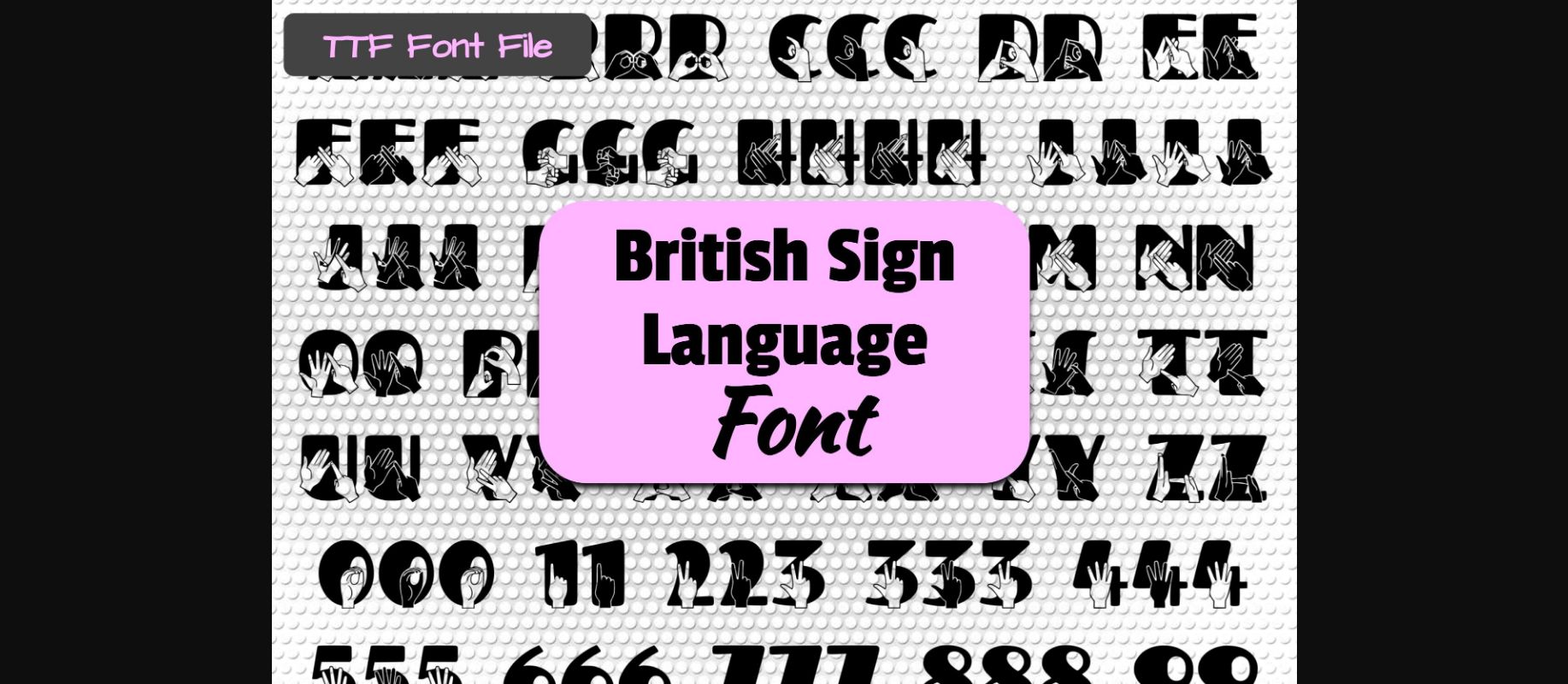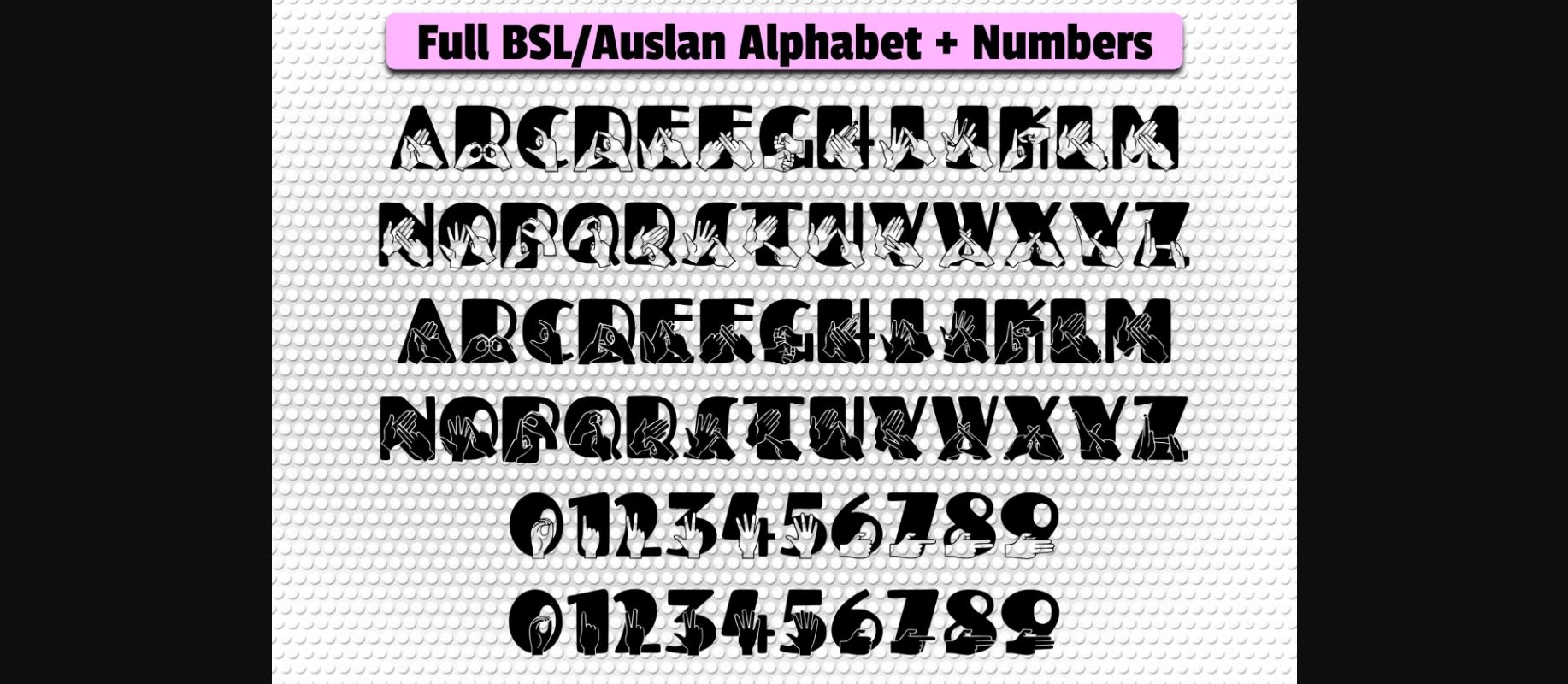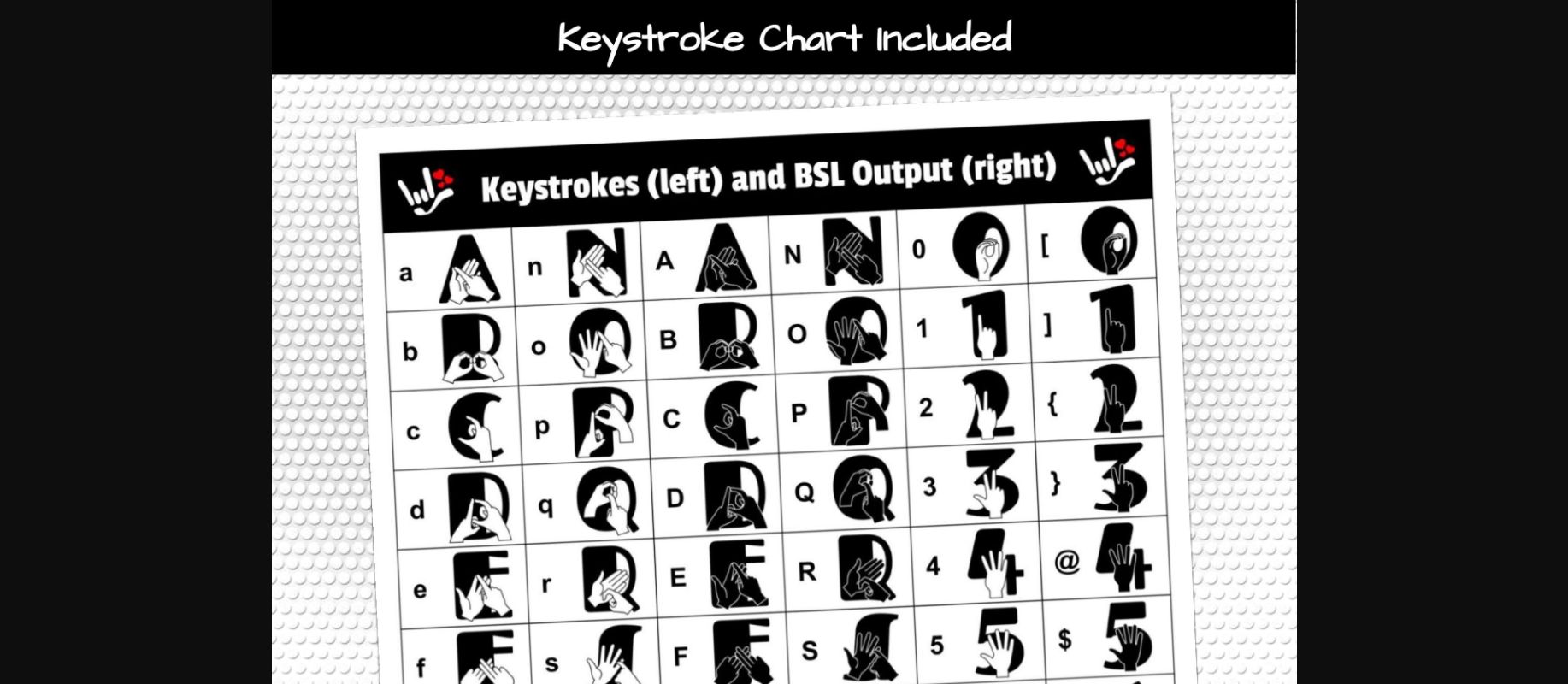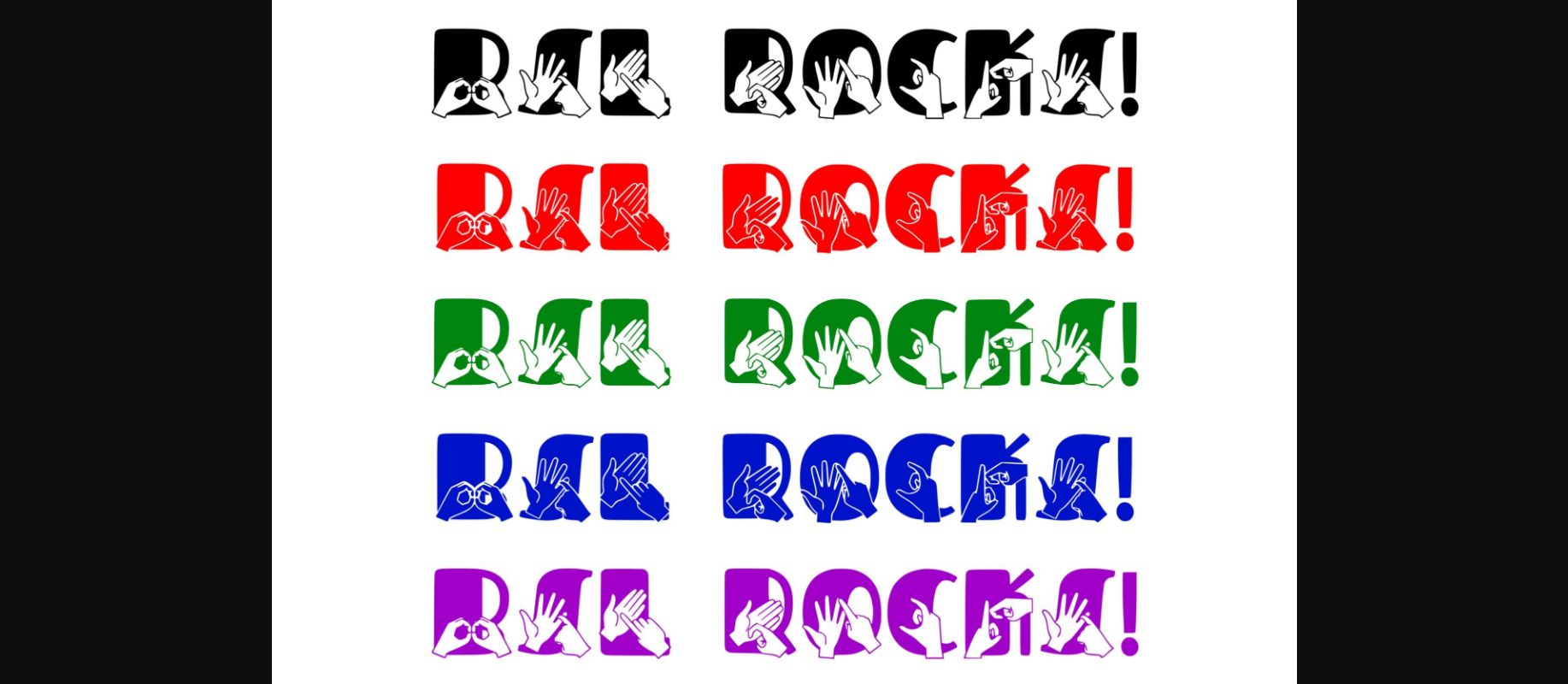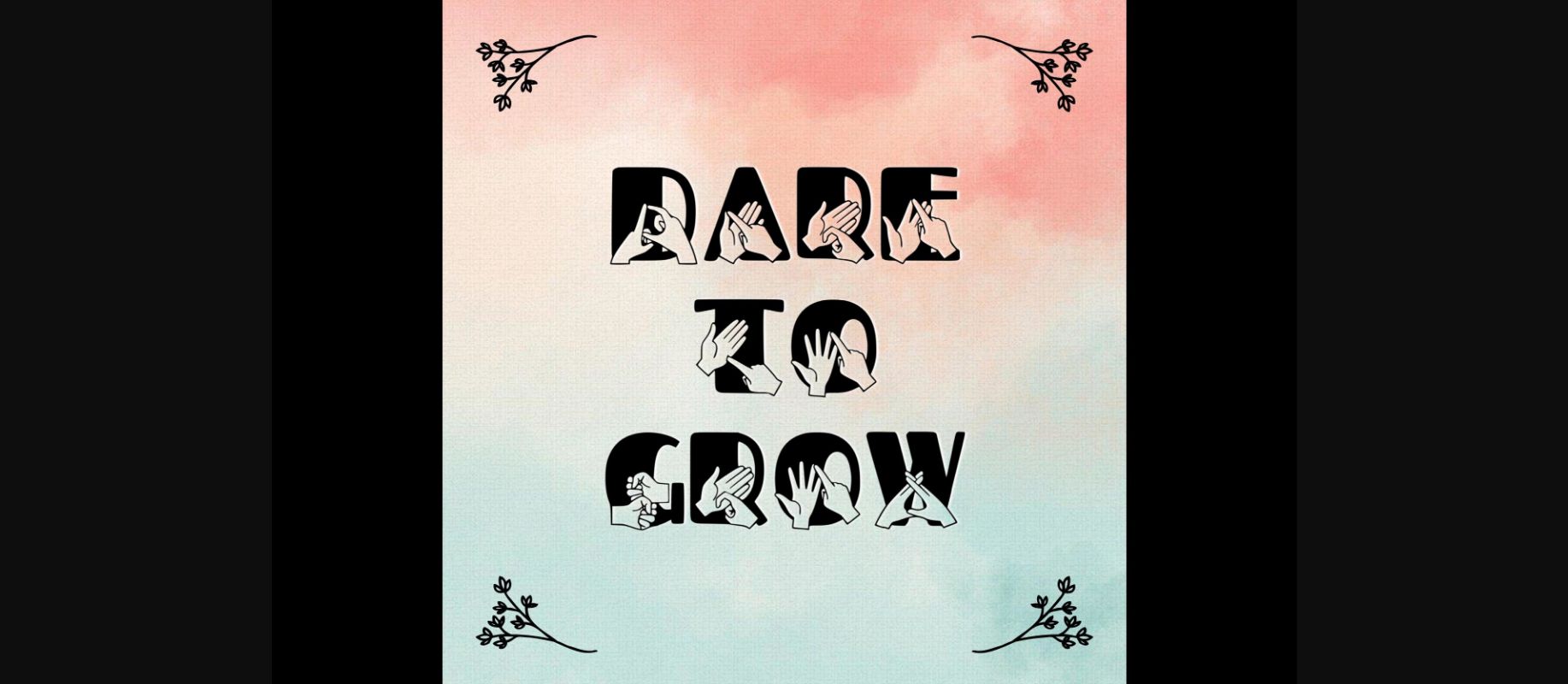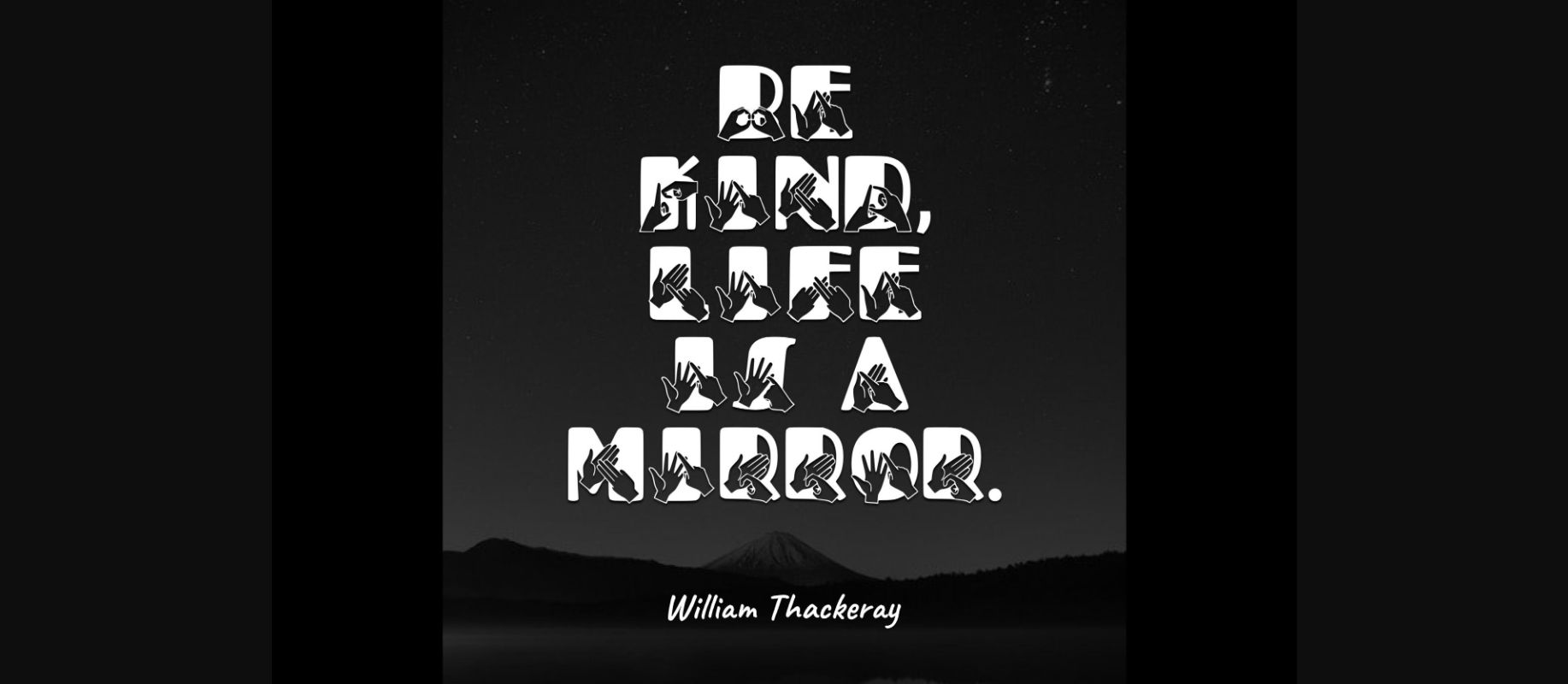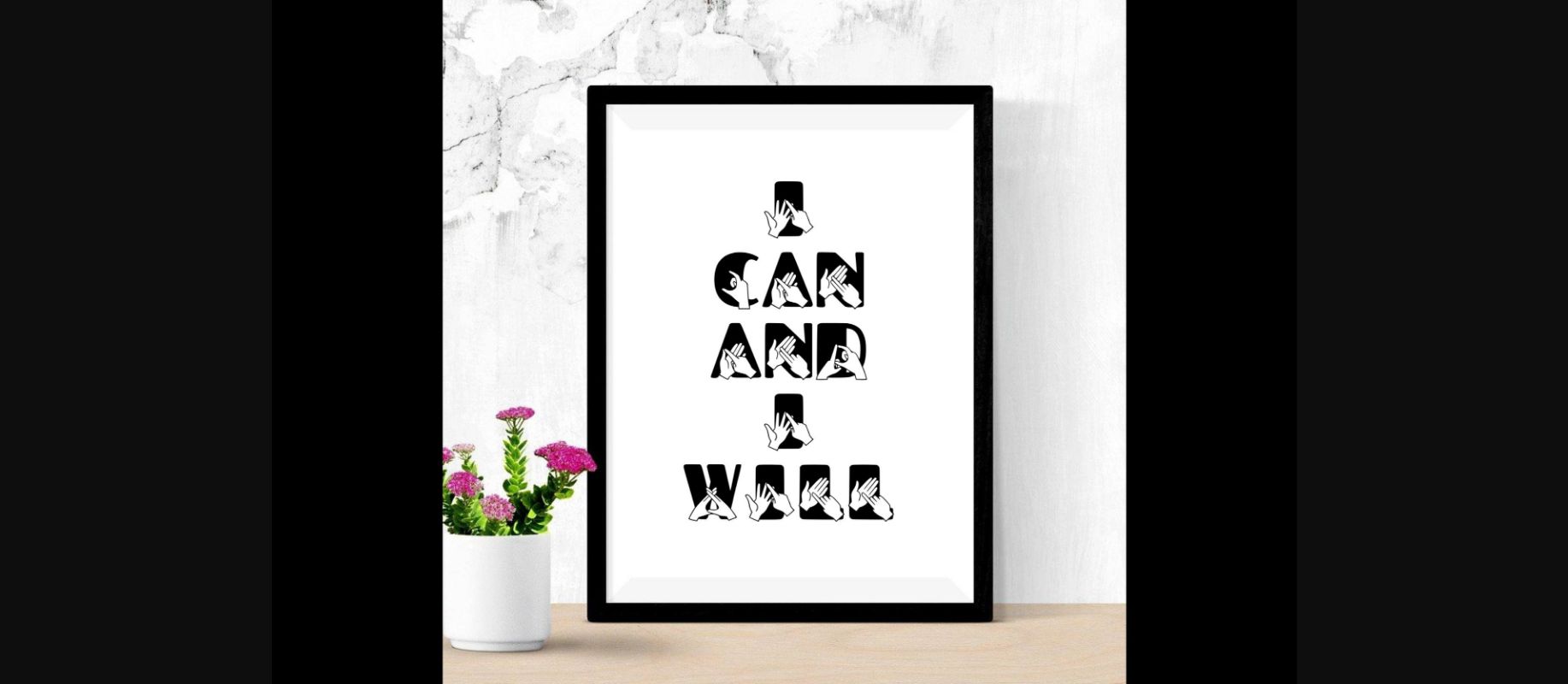
Able Lingo BSL 5 Font
About Able Lingo BSL 5 Font
Able Lingo BSL 5 is a decorative font inspired by the British Sign Language. It is the perfect font choice for any creative project you can think of. Add it to your favorite designs, and notice how it makes them more interesting and appealing!